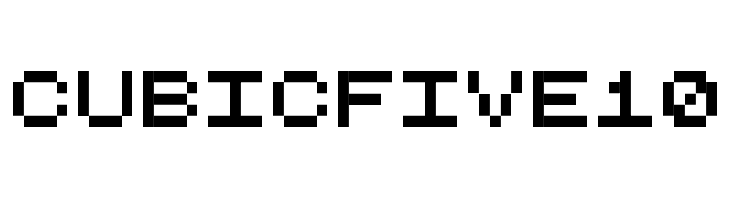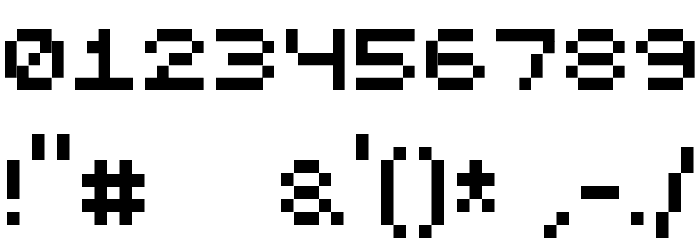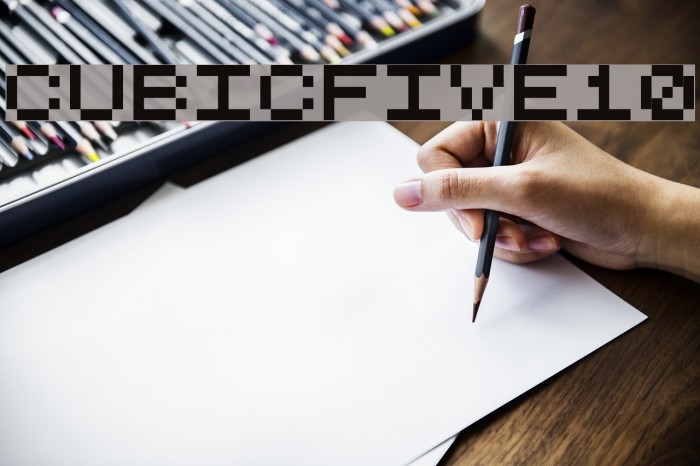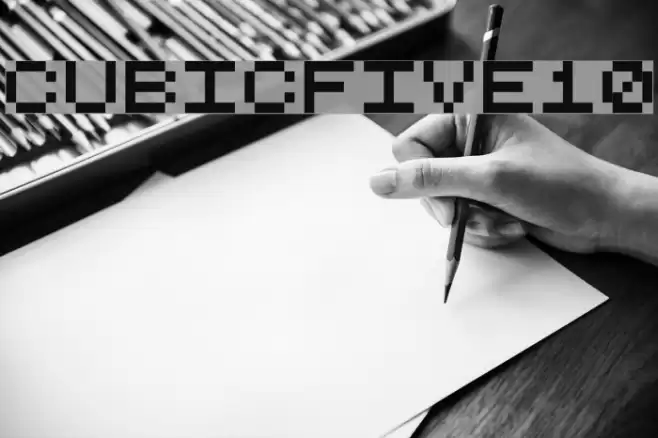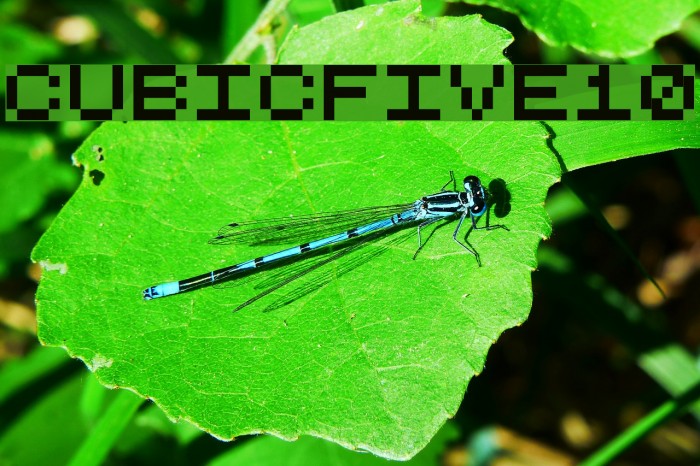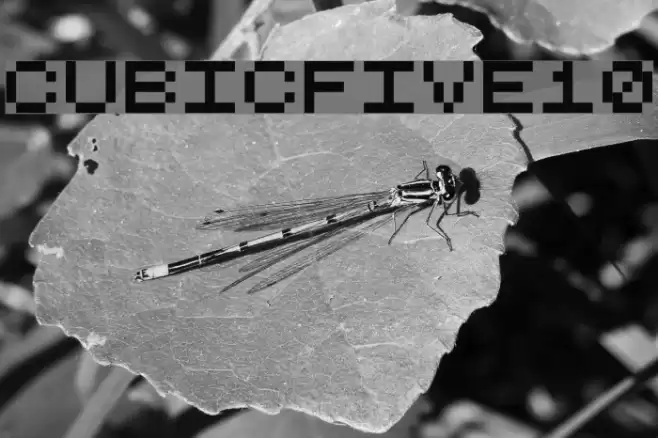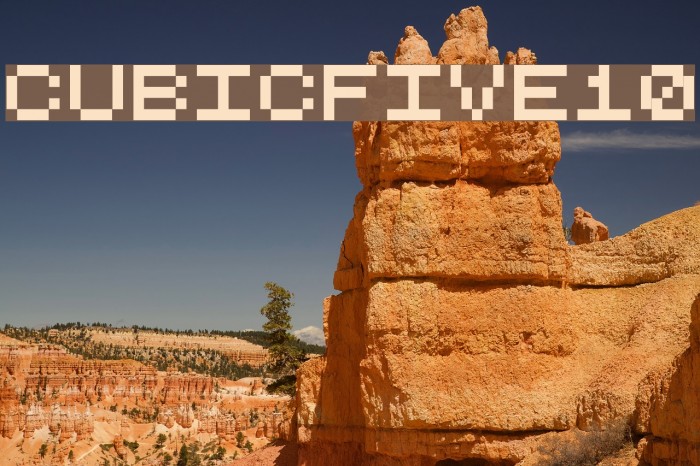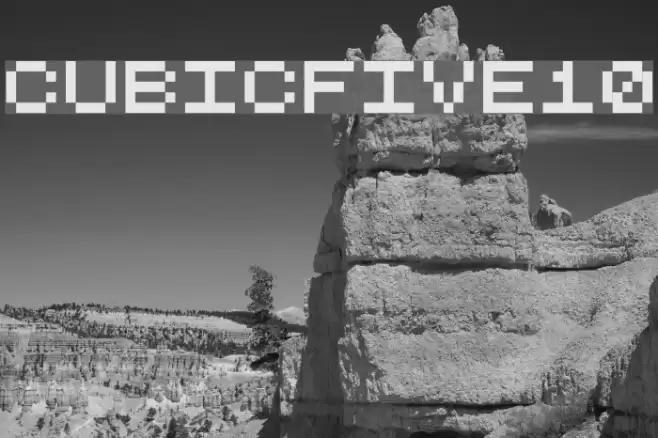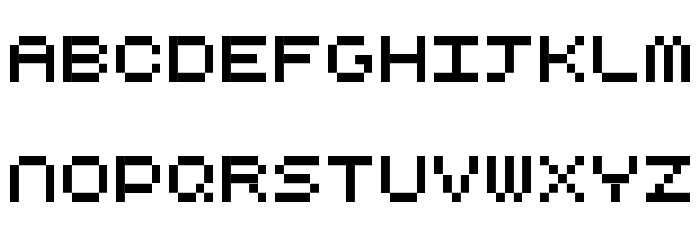
CubicFive10 Font
| Caso de uso | Headlines, Logos, Digital displays |
| Projetos propostos | Ideal for video game designs, tech-themed posters, retro branding, and digital art projects. |